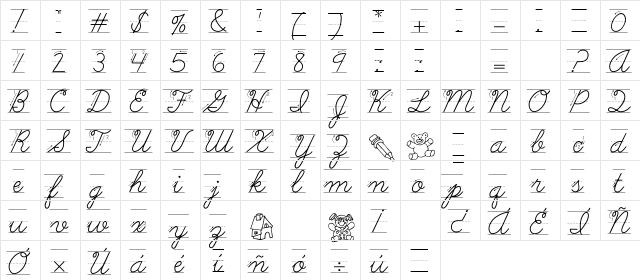
AbcCursiveArrow Regular Font Preview
AbcCursiveArrow Regular
AbcCursiveArrow Regular Font Details
Design Context for AbcCursiveArrow Typeface
AbcCursiveArrow flows with the natural rhythm of handwritten lettering, making it ideal for designs that call for warmth and personal expression.